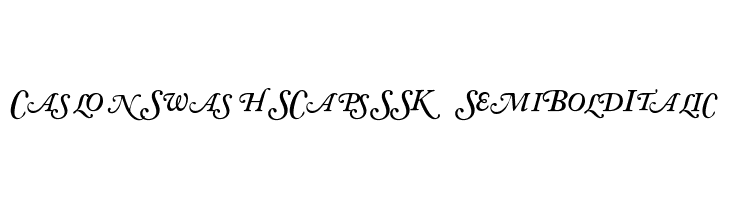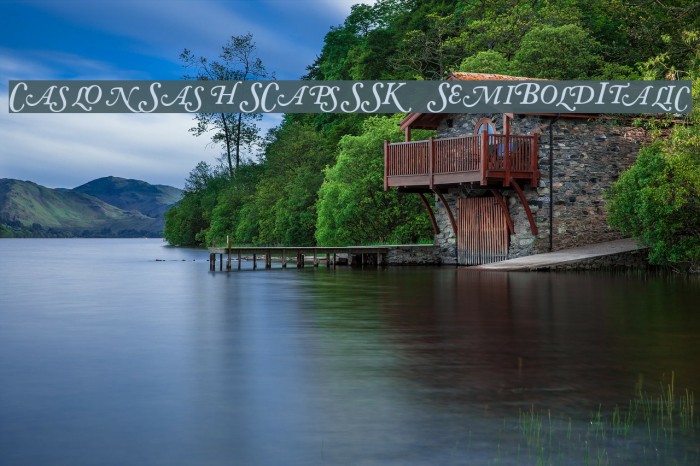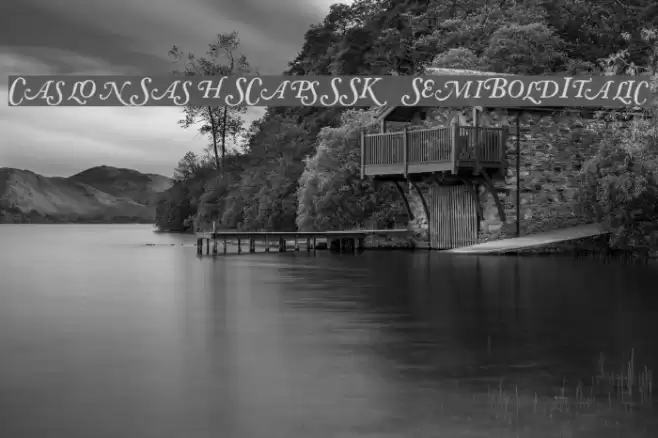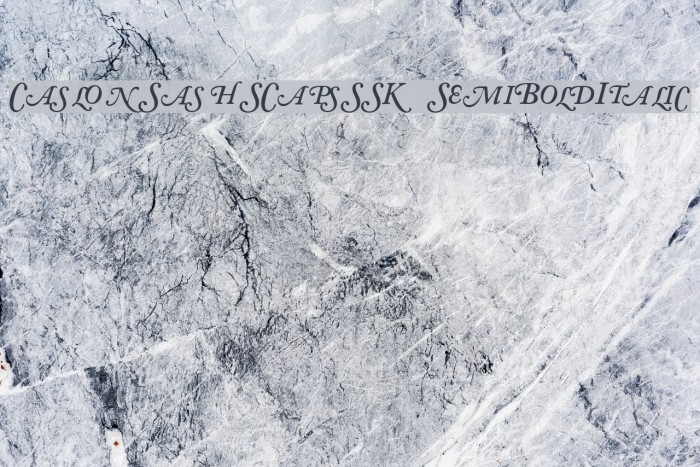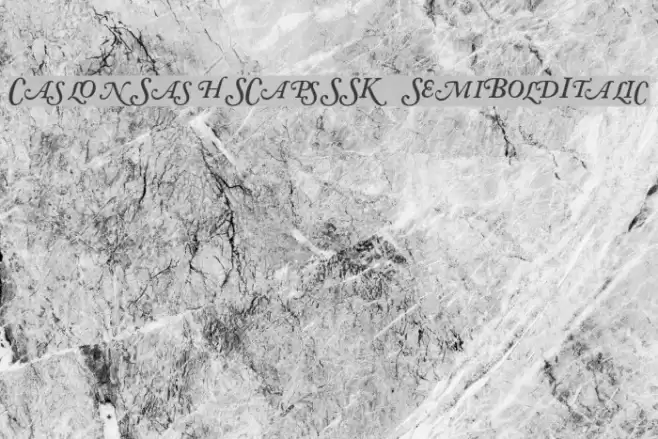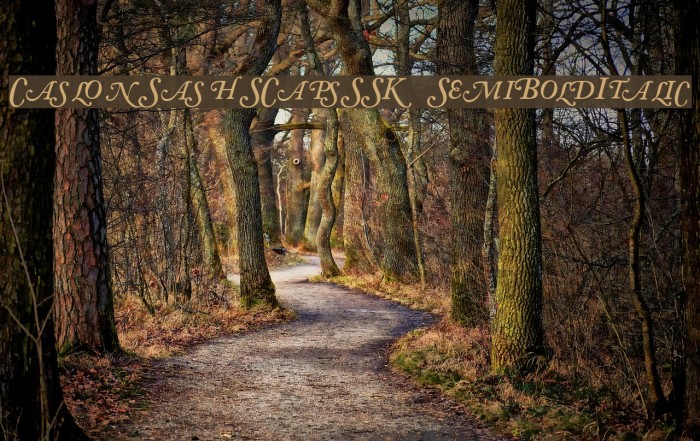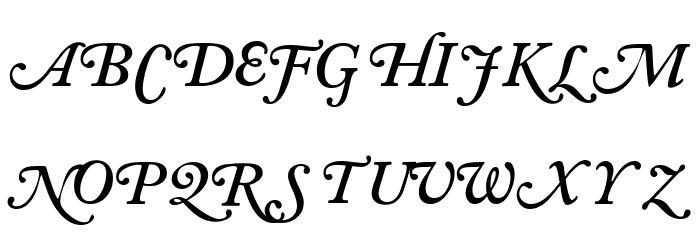
CaslonSwashSCapsSSK SemiBoldItalic Font
CaslonSwashSCapsSSK SemiBoldItalic Description
This font features elegant, flowing swash capitals that exude a sense of sophistication and classic charm. The semi-bold weight provides a strong presence, while the italic style adds a graceful, dynamic touch. Each letter is adorned with delicate flourishes, enhancing its decorative appeal. The font maintains a consistent stroke width, offering medium contrast that balances readability with artistic flair. It's ideal for projects that require a touch of elegance and tradition, such as invitations, formal announcements, or branding that seeks to convey a sense of heritage and refinement.
| Overall Style | Classic |
| Proposed Projects | Ideal for wedding invitations, formal announcements, and classic branding. |